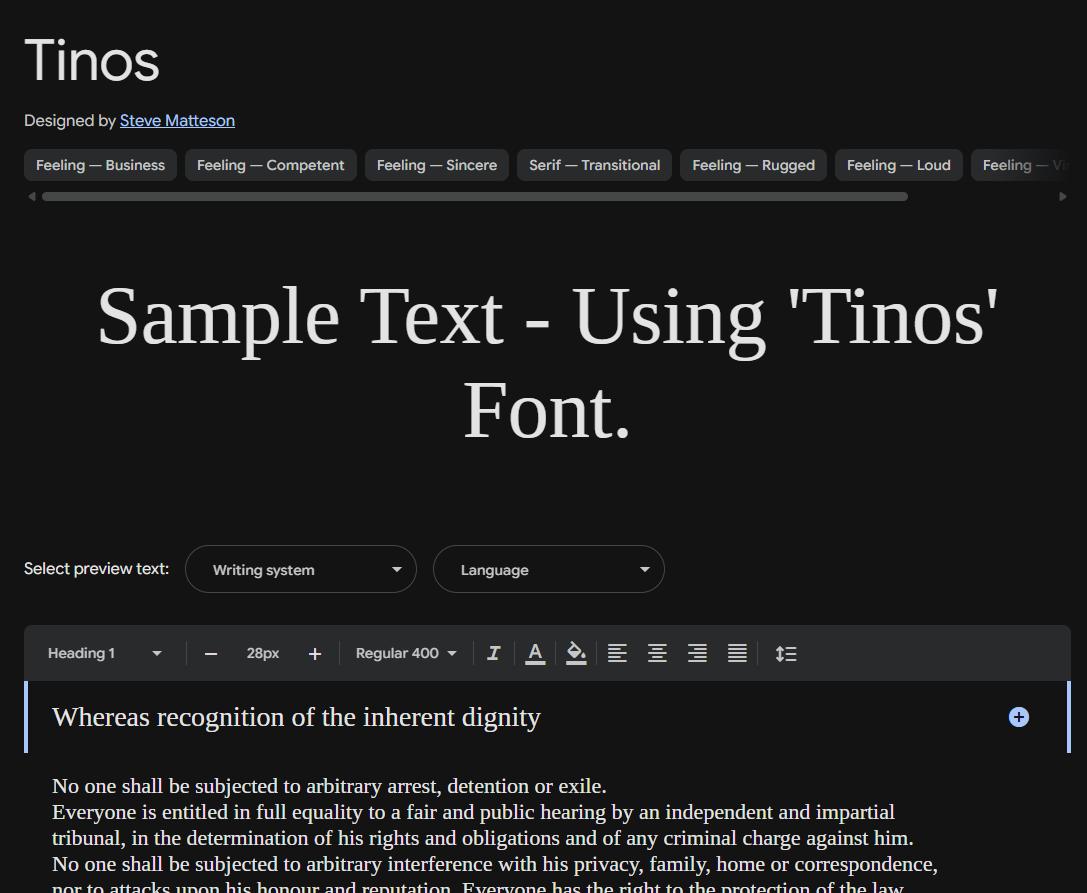
Engineered by Steve Matteson as a high-performance serif solution, Tinos functions as a metrically compatible alternative to Times New Roman, offering four essential styles-Regular, Italic, Bold, and Bold Italic-that ensure seamless document reflow across disparate operating systems. This typeface is a masterclass in screen-optimized typography, utilizing precise vertical metrics and refined character widths to maintain structural integrity during GDI and ClearType rendering. By balancing traditional humanist proportions with robust stroke contrast and sophisticated hinting, Tinos bridges the gap between legacy print aesthetics and modern digital workflows, providing a versatile typographic framework that prioritizes legibility and cross-platform consistency for developers and document architects alike.
Tinos functions as a highly specialized Transitional serif designed by Steve Matteson to achieve metric compatibility with standard document fonts, effectively bridging the gap between historical print traditions and high-resolution screen rendering. Through its robust glyph construction and vertical stress, the typeface projects an inherently competent and sincere business demeanor, while its reinforced terminals and sturdy x-height introduce a rugged durability that allows it to remain loud and legible even in demanding digital environments. This formal stiffness, characterized by precise stroke contrast and an authoritative vintage aesthetic, provides a stable semantic anchor for professional communications, ensuring that the text conveys an unwavering sense of reliability and industrial precision across all typographic scales.
Despite its technical prowess as a metrically compatible alternative to Times New Roman within the Google Croscore set, Tinos is inherently unsuitable for high-end luxury branding or avant-garde editorial projects that demand high-contrast "Didone" aesthetics or distinct stroke modulation. Because Steve Matteson engineered this four-style serif family specifically for screen-rendered legibility and cross-platform vertical metrics parity, its utilitarian DNA lacks the idiosyncratic flourishes and expressive kerning required for premium boutique identities or bespoke print environments. In sectors where "typographic transparency" is a liability-such as high-fashion logo design or artisanal packaging-Tinos's functional adherence to standard character widths and its lack of optical-size-specific display weights render it an overly pedestrian choice, failing to deliver the sophisticated visual hierarchy and status-driven differentiation necessitated by elite market positioning.
If you're searching for a solid alternative to Tinos, both Barlow and Roboto Serif offer a fantastic balance of readability and style. These choices keep your layouts looking polished while providing a slightly more modern feel to your digital typography.
Tinos is classified as a contemporary serif typeface designed specifically for cross-platform screen readability. It functions as a transitional serif within the Croscore font set, characterized by its vertical stress and sturdy slab-like serifs that enhance glyph recognition.
Tinos was engineered to serve as a metrically compatible alternative to the ubiquitous Times New Roman. This compatibility ensures that document layouts remain intact without text reflow when switching between fonts, maintaining identical character widths and horizontal tracking values.
The typeface is exceptionally well-suited for long-form reading due to its open counters and balanced proportions. Its design architecture leverages a generous x-height to minimize eye fatigue, utilizing sophisticated delta hinting to ensure sharp edge definition on low-resolution displays.
In a professional context, Tinos conveys an aura of traditional authority blended with modern technical precision. The font balances humanist calligraphic roots with a rigid geometric structure, making it ideal for branding that requires "on-screen" legibility without sacrificing classical elegance.
The elevated x-height of Tinos allows lowercase characters to occupy more vertical space, making them appear larger and more distinct at small point sizes. This structural choice maximizes the internal aperture of the glyphs, preventing "ink trapping" visual artifacts through optimized rasterization at the pixel level.
Tinos pairs seamlessly with neutral sans-serifs such as Arimo or Roboto to create a balanced typographic hierarchy. Because Arimo is the metrical equivalent to Arial, pairing it with Tinos ensures a synchronized stroke weight and consistent cap height across diverse UI components.
The Tinos family is a comprehensive set that includes regular, italic, bold, and bold italic weights. Each style is individually optimized for screen rendering, featuring specific TrueType instructions that maintain weight consistency across different anti-aliasing environments.
While originally designed for digital environments, Tinos performs with high fidelity in professional print applications. Its clean vector outlines and robust construction translate to sharp physical output, adhering to standard PostScript printing protocols for high-DPI reproduction.
Tinos is a viable choice for mobile interfaces where a sophisticated, editorial aesthetic is required for content-heavy screens. The typeface excels in compact viewports by utilizing sub-pixel rendering techniques that preserve the integrity of its serifs even on high-density mobile Retina displays.
Tinos handles dense text blocks efficiently by maintaining a rhythmic horizontal flow and clear word shapes. The font's tight side-bearings and optimized character density allow for more words per line, which improves the overall "color" of the page in justified text alignments.